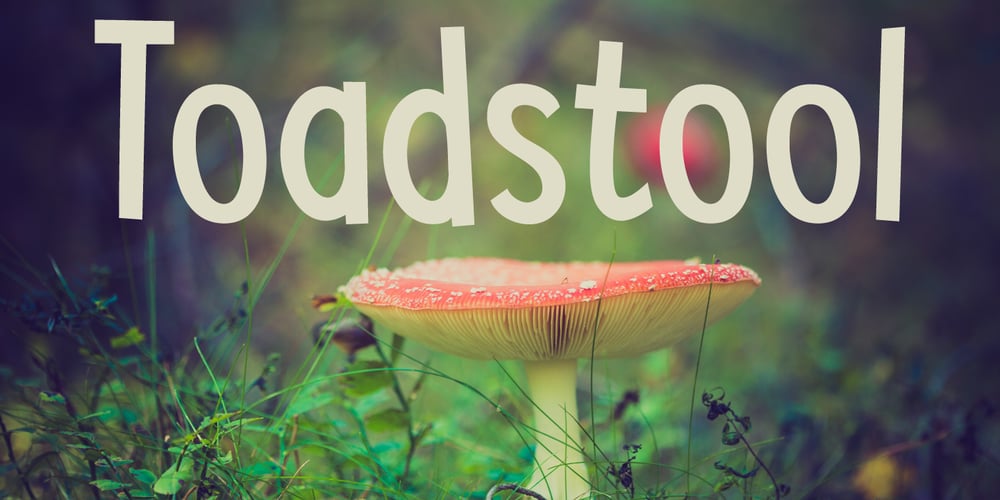
Toadstool Font Family was designed by David Kerkhoff and published by Hanoded. Toadstool contains 2 styles and family package options. My kids love toadstools, especially the red capped ones with the white spots (they’re called Amanita muscaria, a.k.a. fly agaric – in case you’re wondering). A couple of months ago you could find loads of them in the forest, but now they’ve all disappeared. Toadstool font will not disappear, however. It is a very legible, clean and neat text font with an uneven baseline, slightly bouncy glyphs and more diacritics than a forest has mushrooms. Use if for packaging, kids’ book covers and posters. This toadstool is the non-toxic variety, so go nuts.